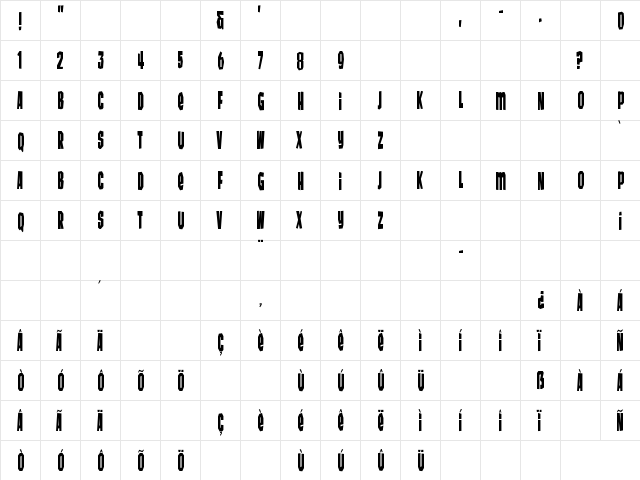
Wunderbar Regular
Design Context for Wunderbar Typeface
Wunderbar takes a measured approach to typography — its balanced proportions and neutral character make it a reliable workhorse for both digital and print work.